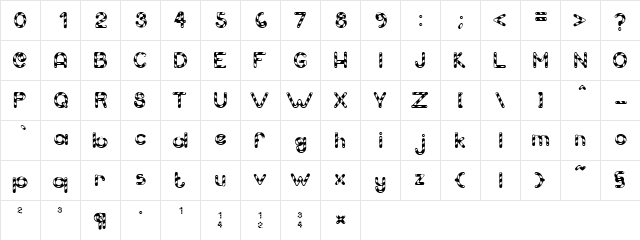
CandyCaneUnregistered Medium
Design Context for CandyCaneUnregistered Typeface
CandyCaneUnregistered is a composed and adaptable typeface that performs quietly and consistently across a wide range of design contexts.